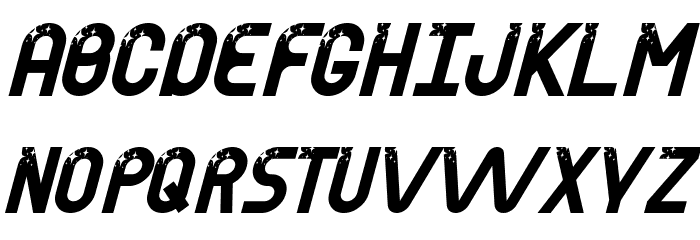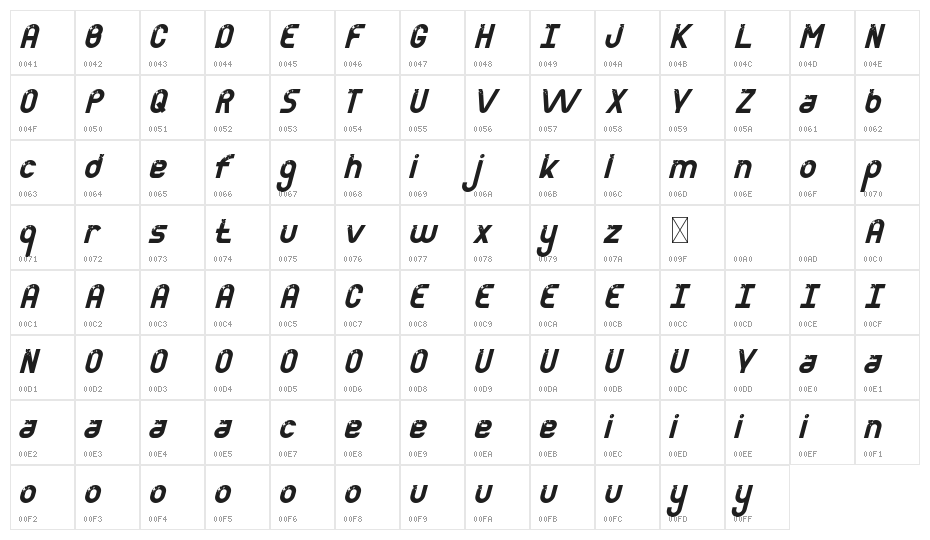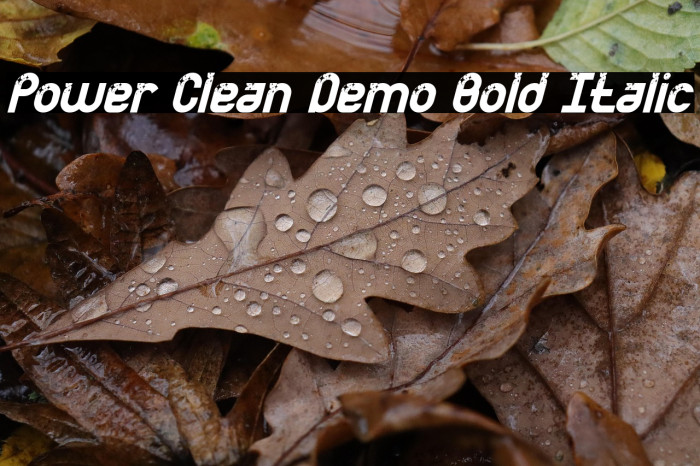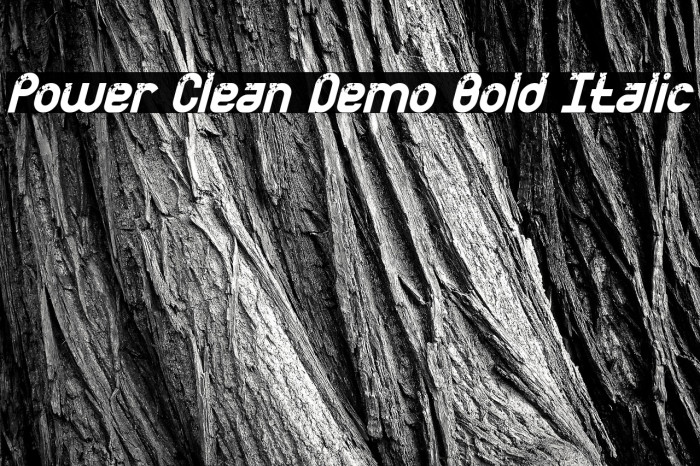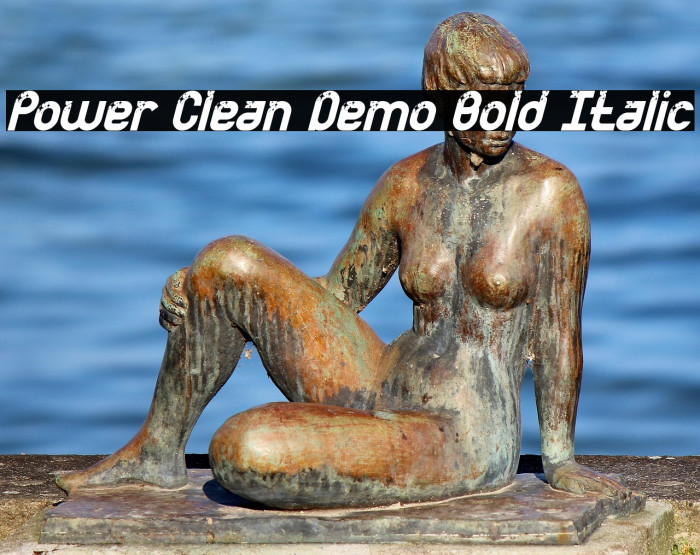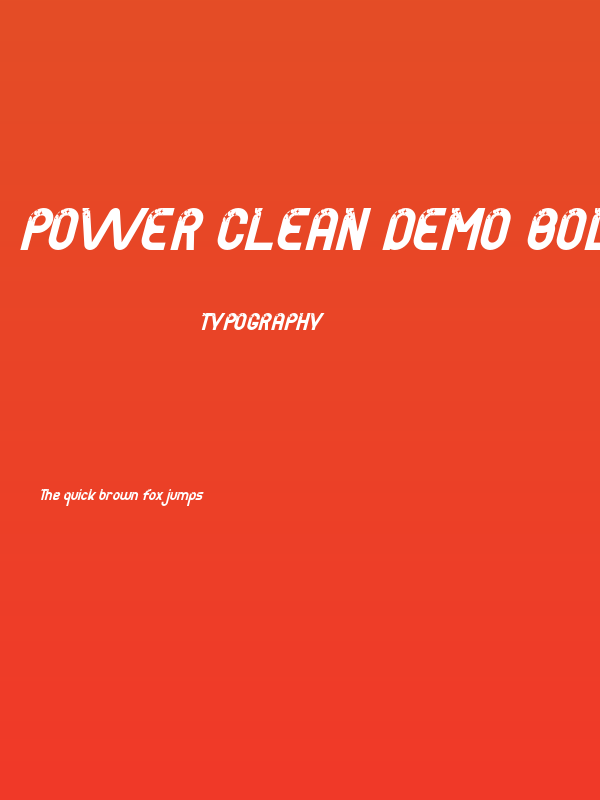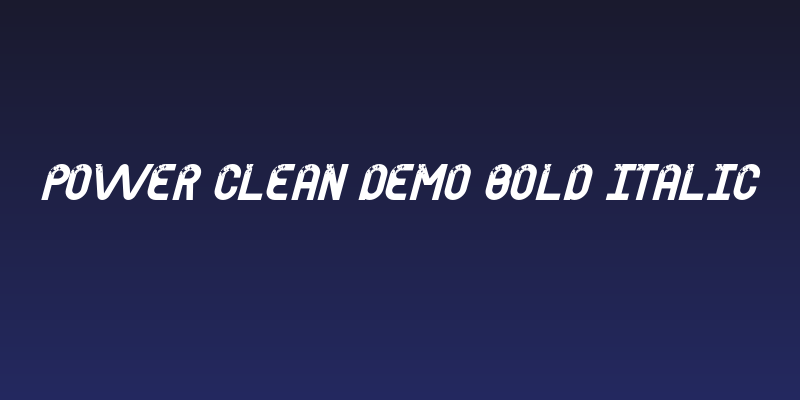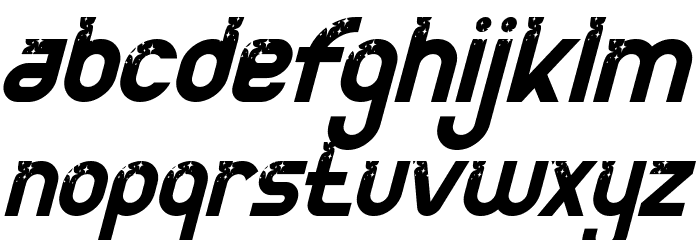
Power Clean Demo Bold Italic Font
Power Clean Demo Bold Italic Description
This font features a bold and italic style with a distinct distressed texture, giving it a rugged and dynamic appearance. The uppercase and lowercase letters are designed with a forward slant, enhancing the italic effect. The bold weight provides a strong visual impact, making it suitable for attention-grabbing headlines or titles. The distressed texture adds a unique, vintage feel, reminiscent of worn-out or grunge styles. The characters are well-spaced, ensuring readability while maintaining a compact look. This font's combination of boldness and texture makes it ideal for projects that require a touch of edginess and creativity.
| Overall Style | Vintage, Grunge |
| Proposed Projects | Ideal for posters, album covers, branding, and any design needing a bold, edgy look. |